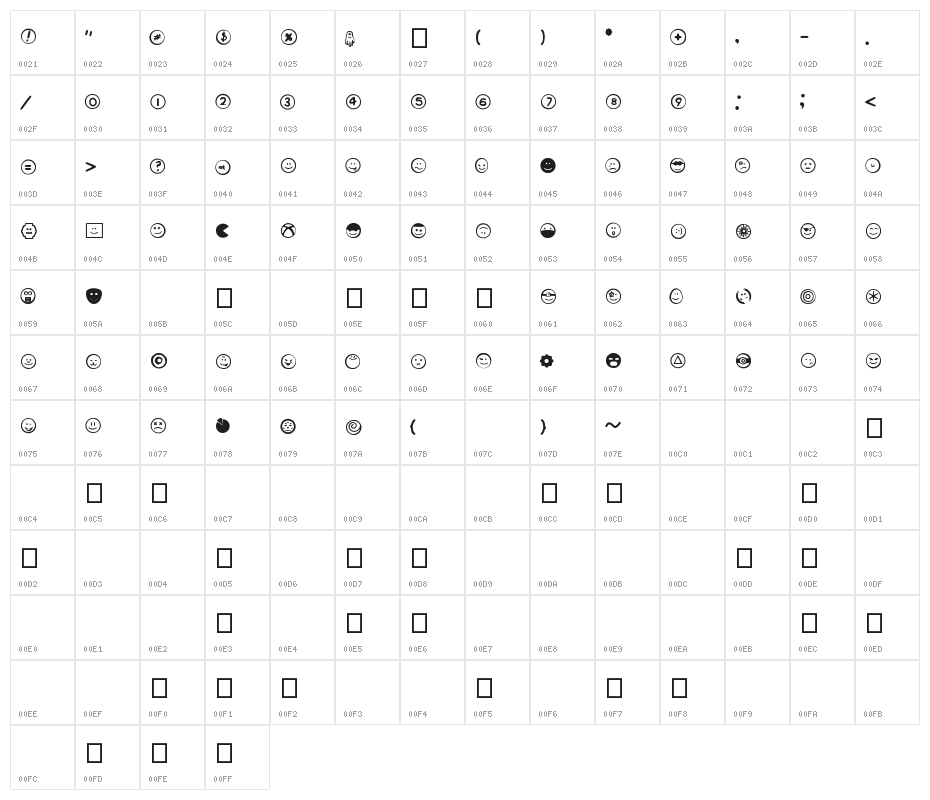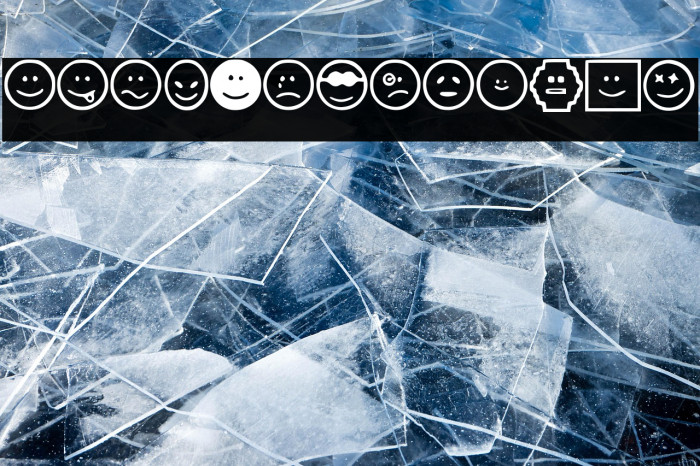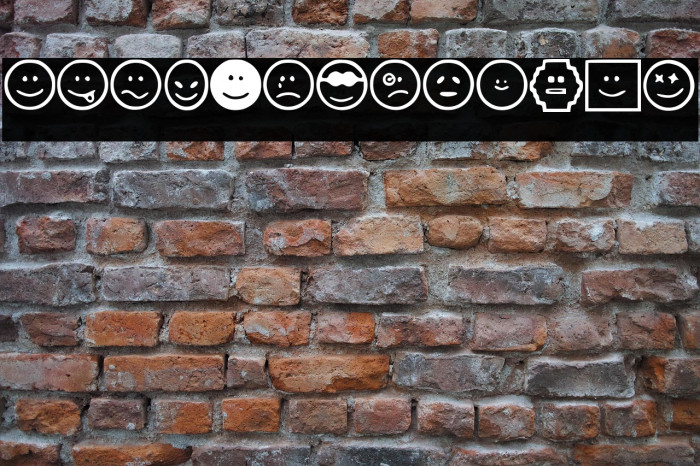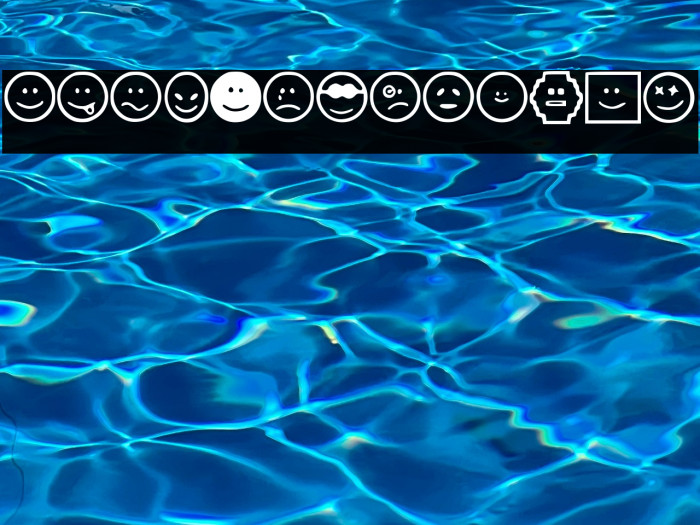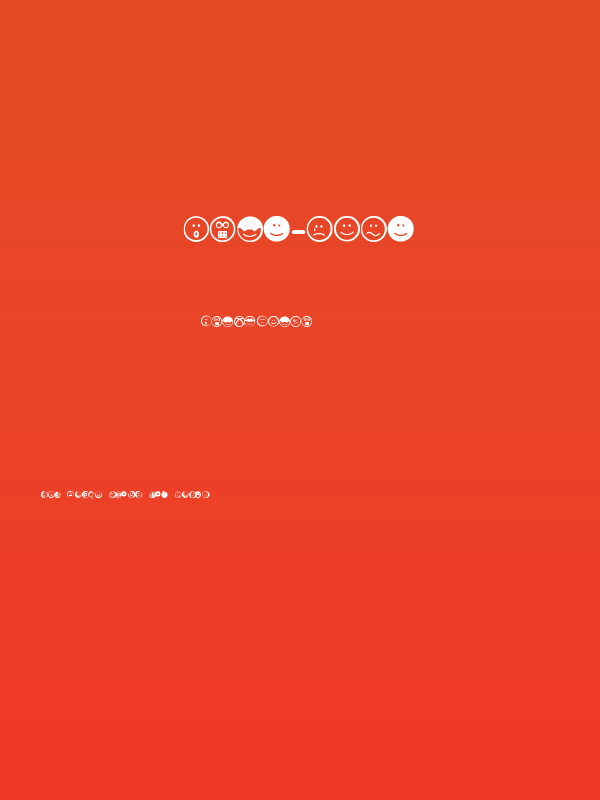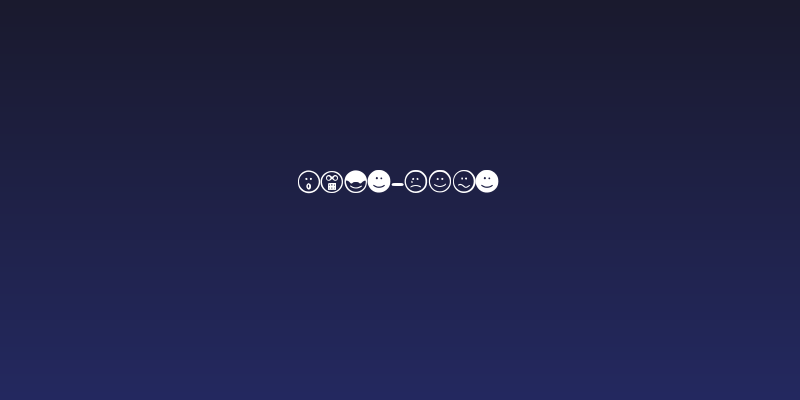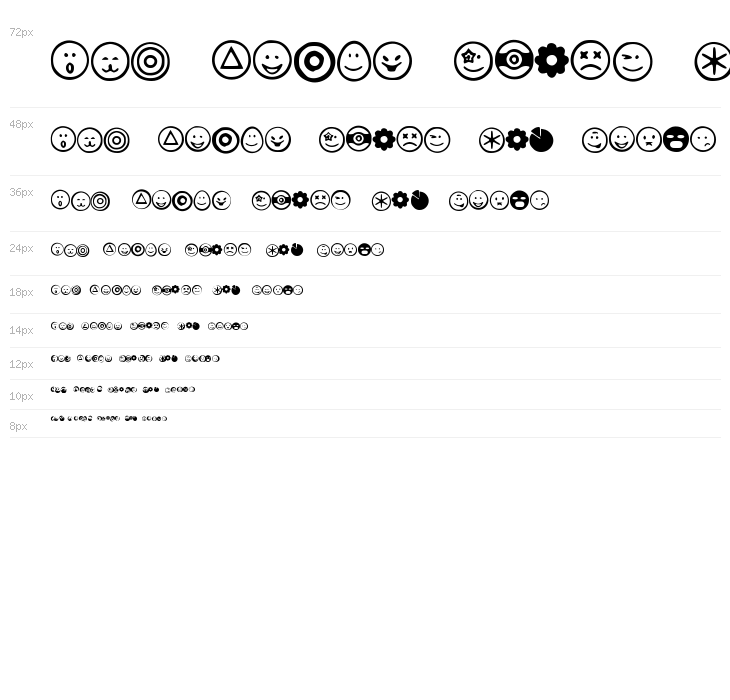
Type-Face Font
Type-Face Description
A playful and decorative dingbat font composed entirely of various smiley faces, emoticons, and whimsical symbols, each enclosed in a bold circular outline. The characters are highly stylized, with each glyph representing a unique facial expression or icon, rather than traditional alphanumeric forms.
| Overall Style | Playful, Whimsical, Decorative |
| Use Case | Icons, Decorative elements, Themed graphics, Not suitable for body text or headlines. |
| Proposed Projects | ChildrenΓ’β¬β’s books, party invitations, playful branding, educational materials, stickers, greeting cards. |